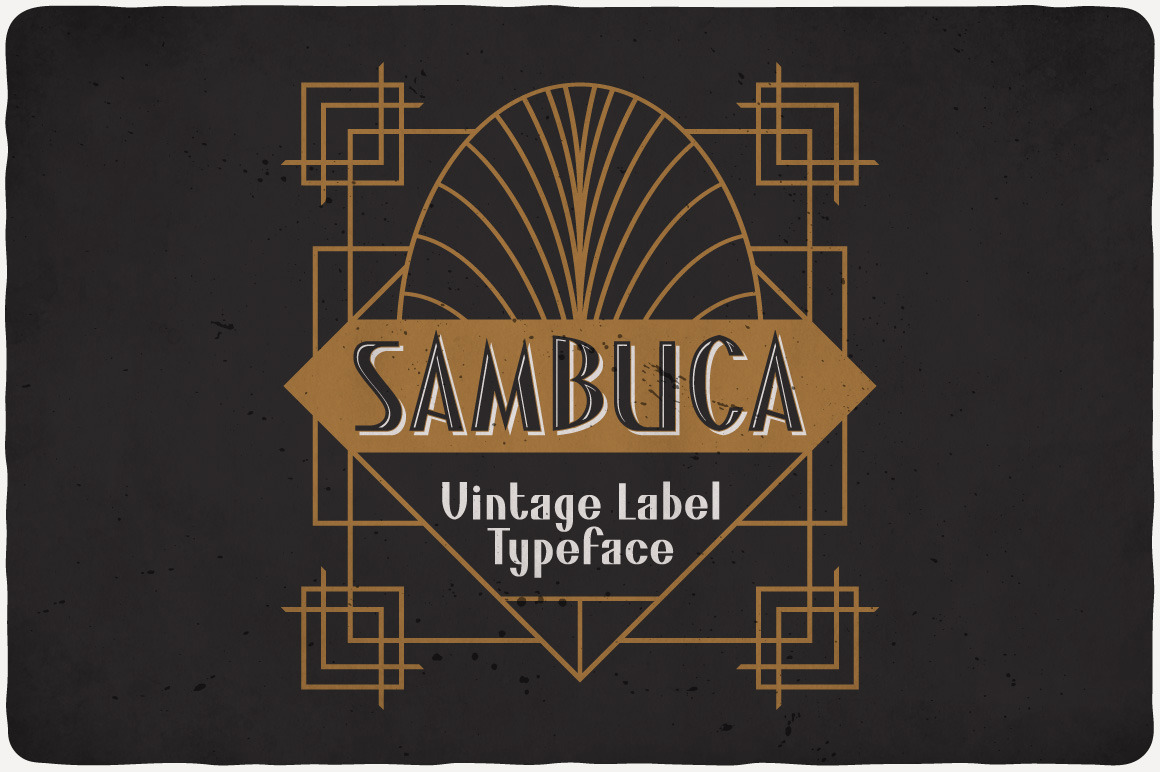
Sambuca Typeface
Introducing a vintage look label typeface named "Sambuca". It's made in strong and vintage label style. Typeface is good viewed on any label design.